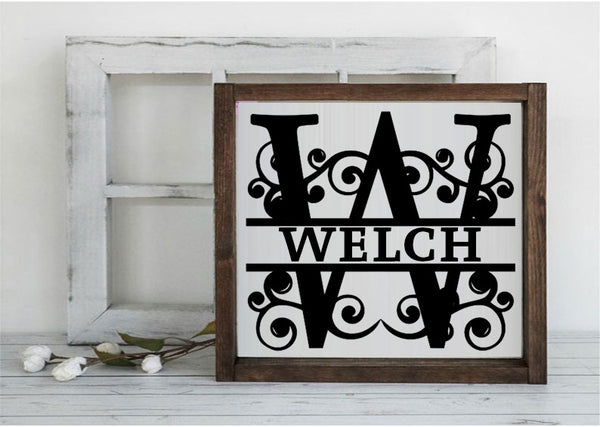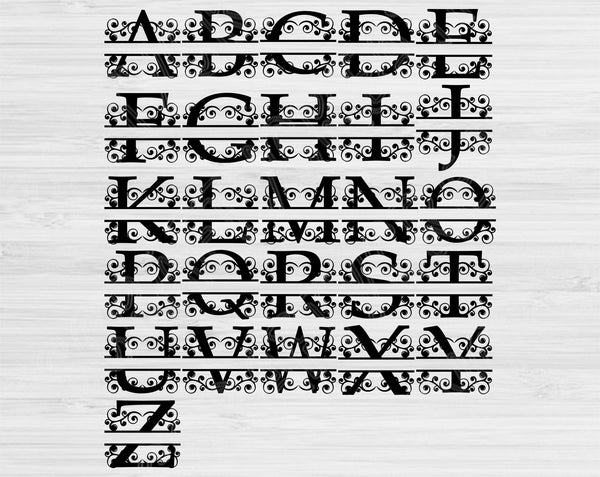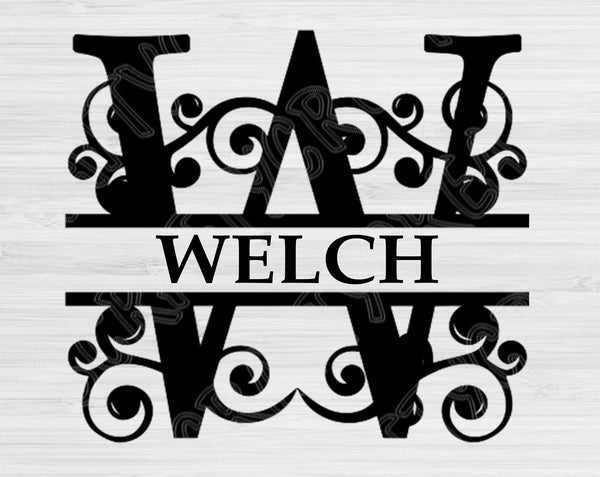
This split font svg that are upper case letters is the perfect split letter svg to customize gifts. It would look great on a wood sign, metal pail, or plate. This purchase will allow you to use vinyl, paper, or your other favorite medium.
This is the entire alphabet.